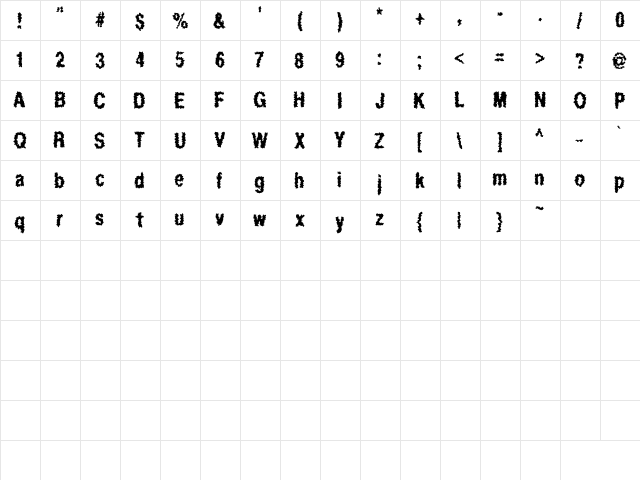
Regurgitation Regular
| Foundry | Lauren C. Brown |
| Designer | Lauren C. Brown |
Design Context for Regurgitation Typeface
Regurgitation is a composed and adaptable typeface that performs quietly and consistently across a wide range of design contexts.